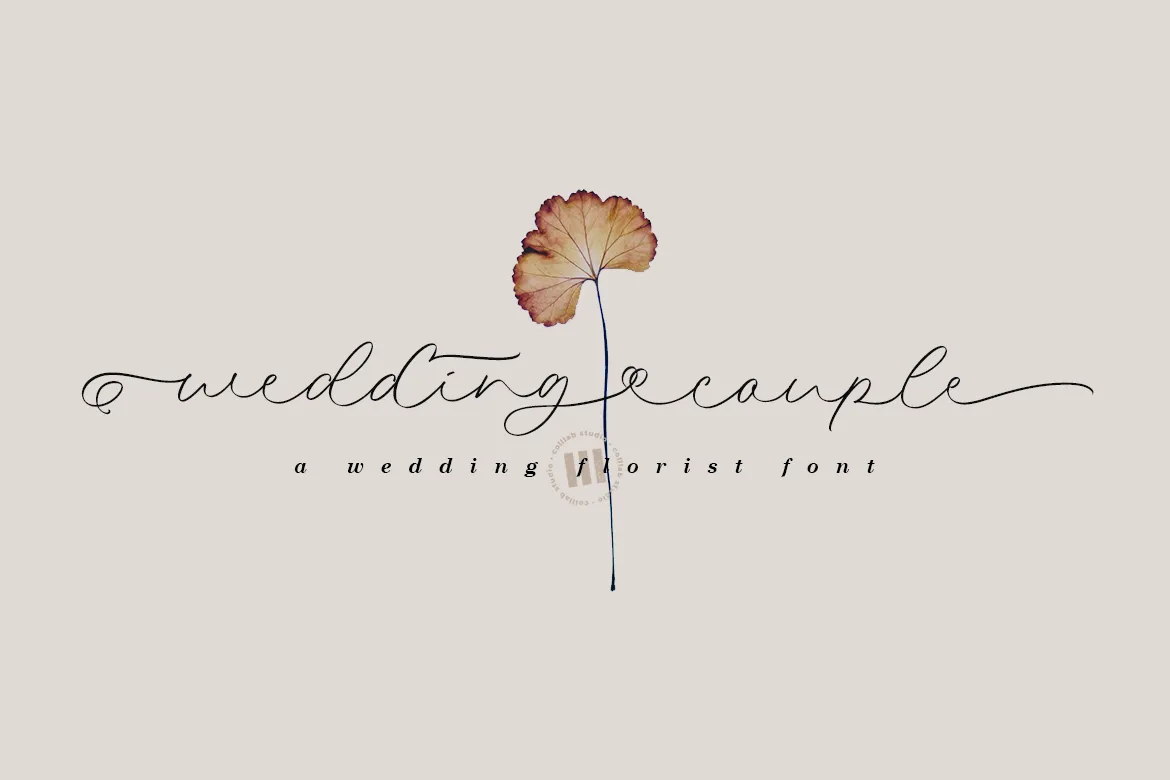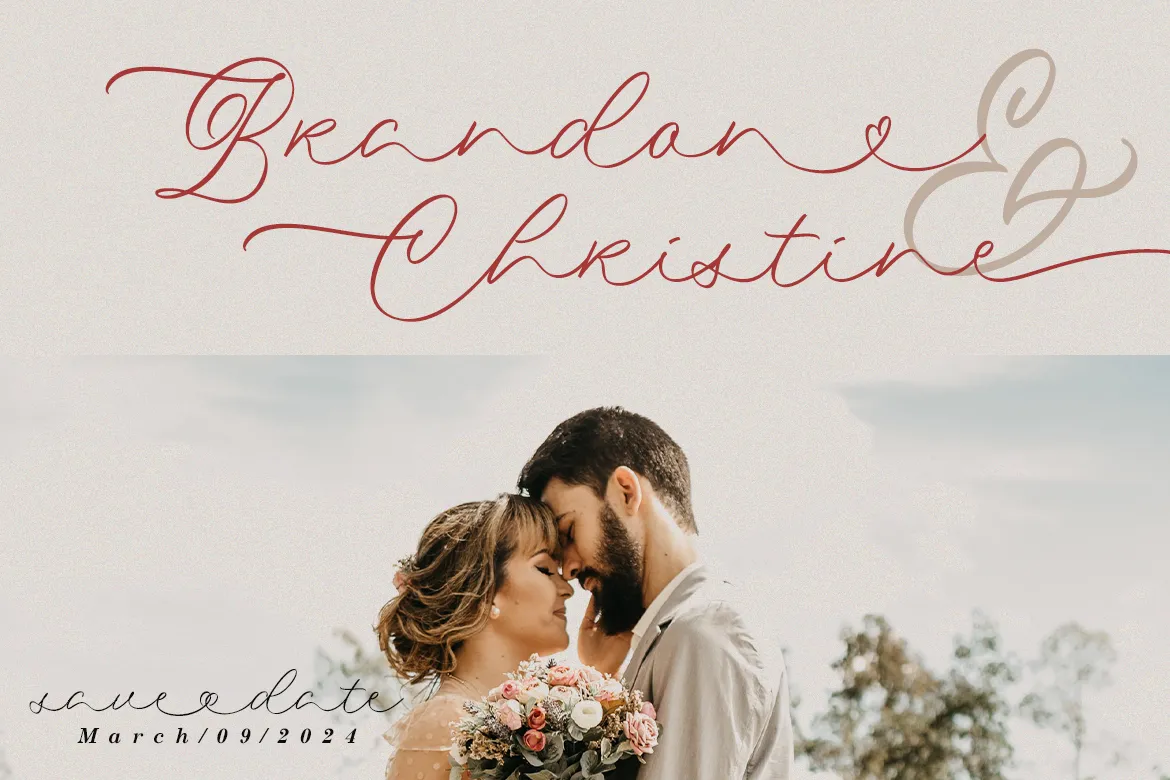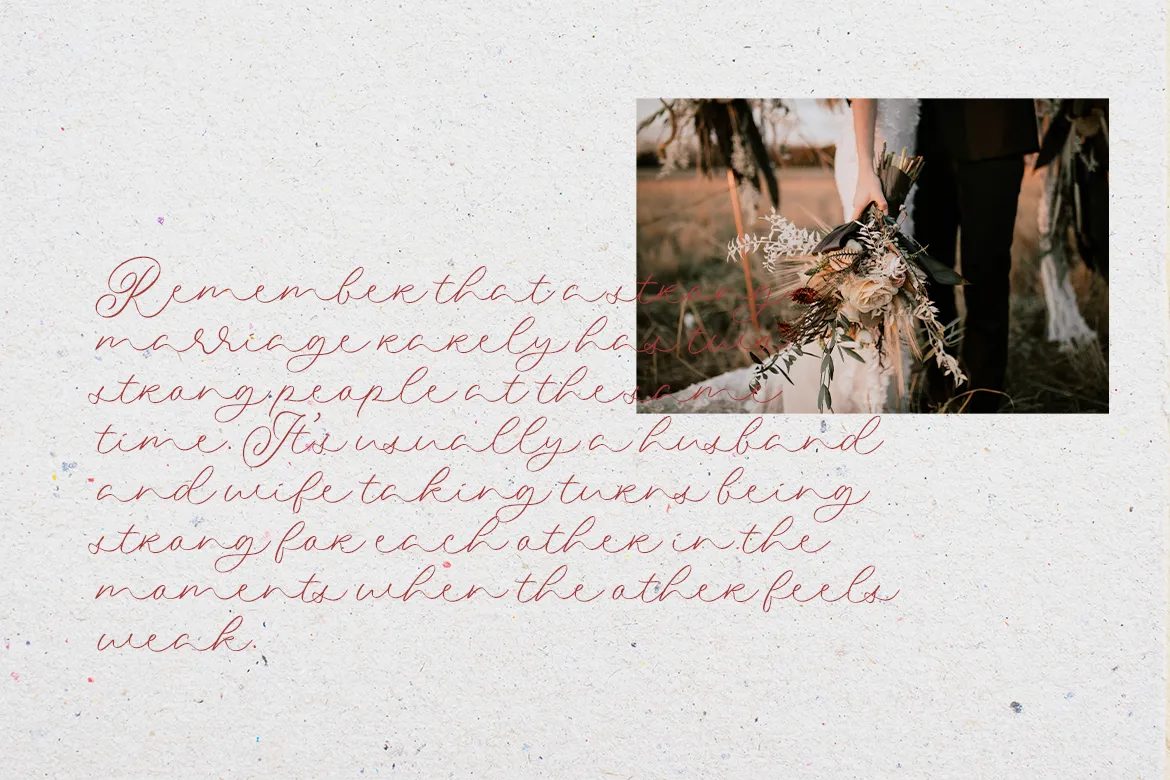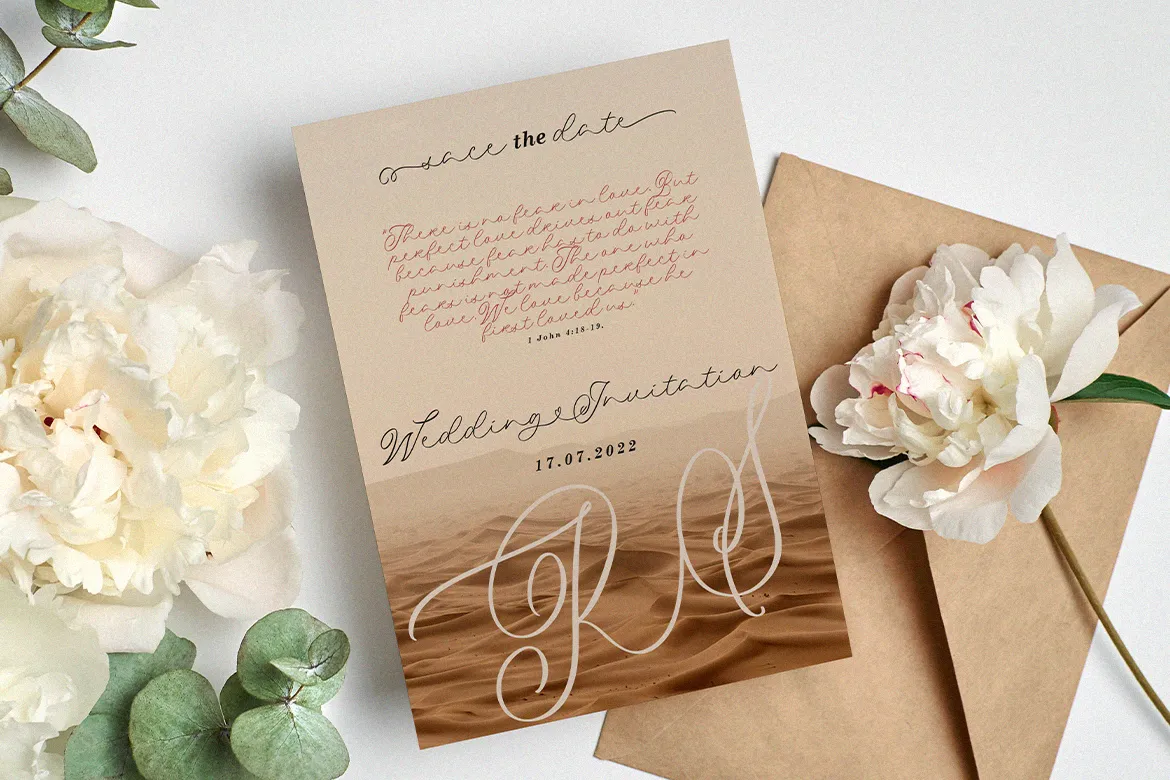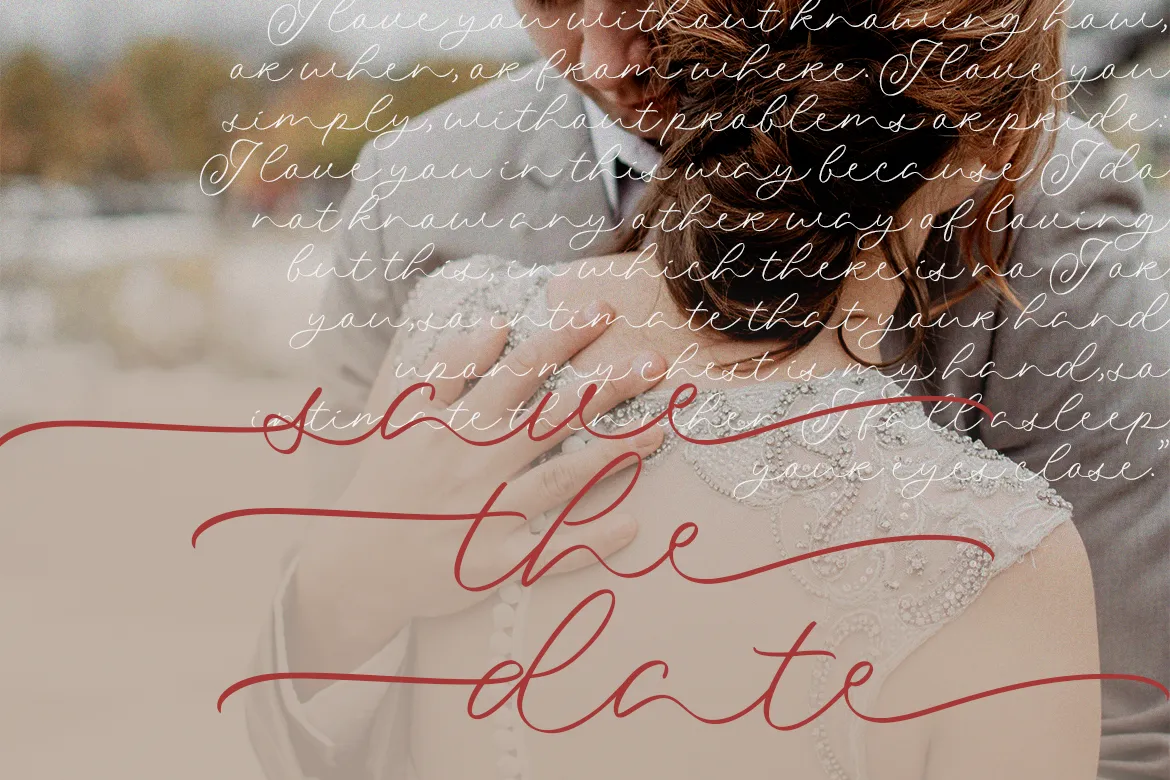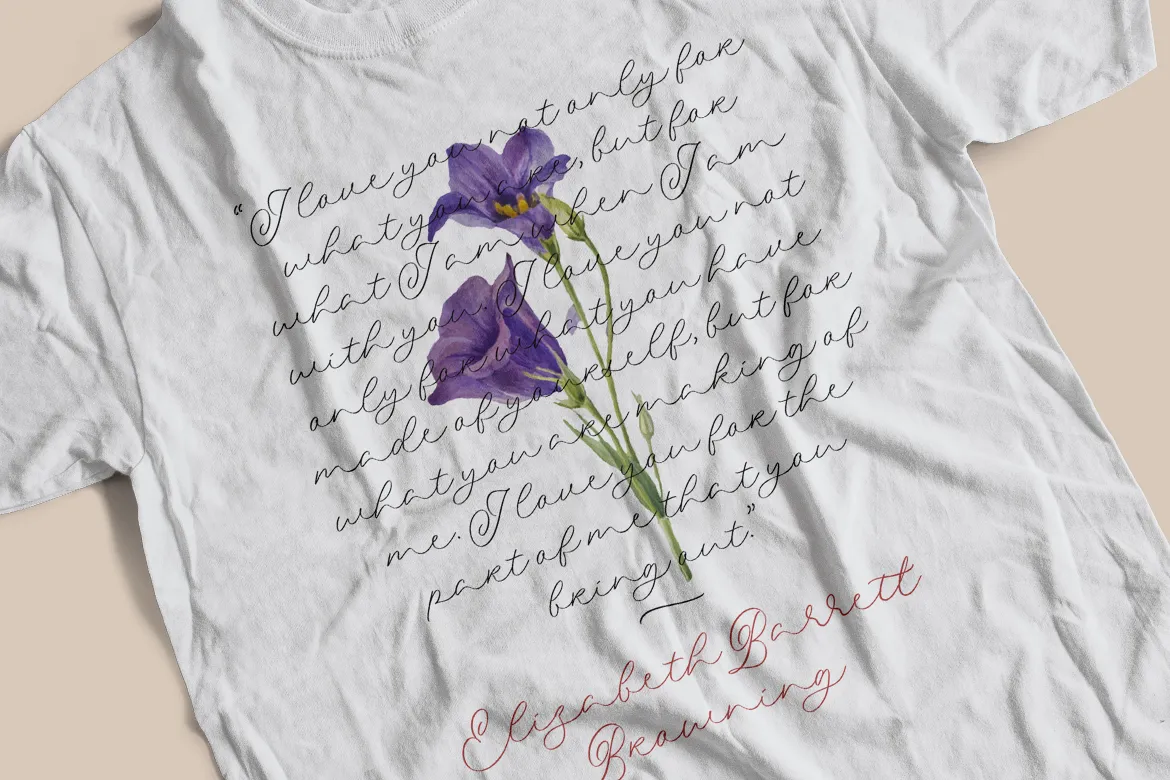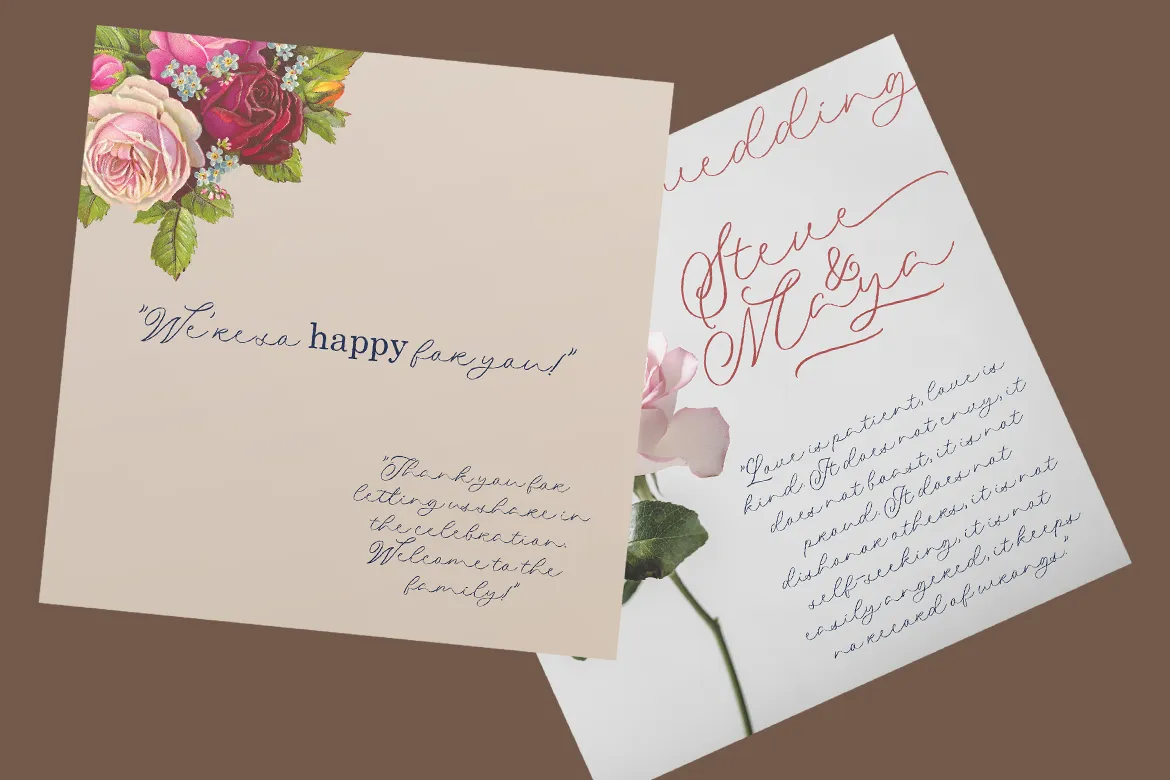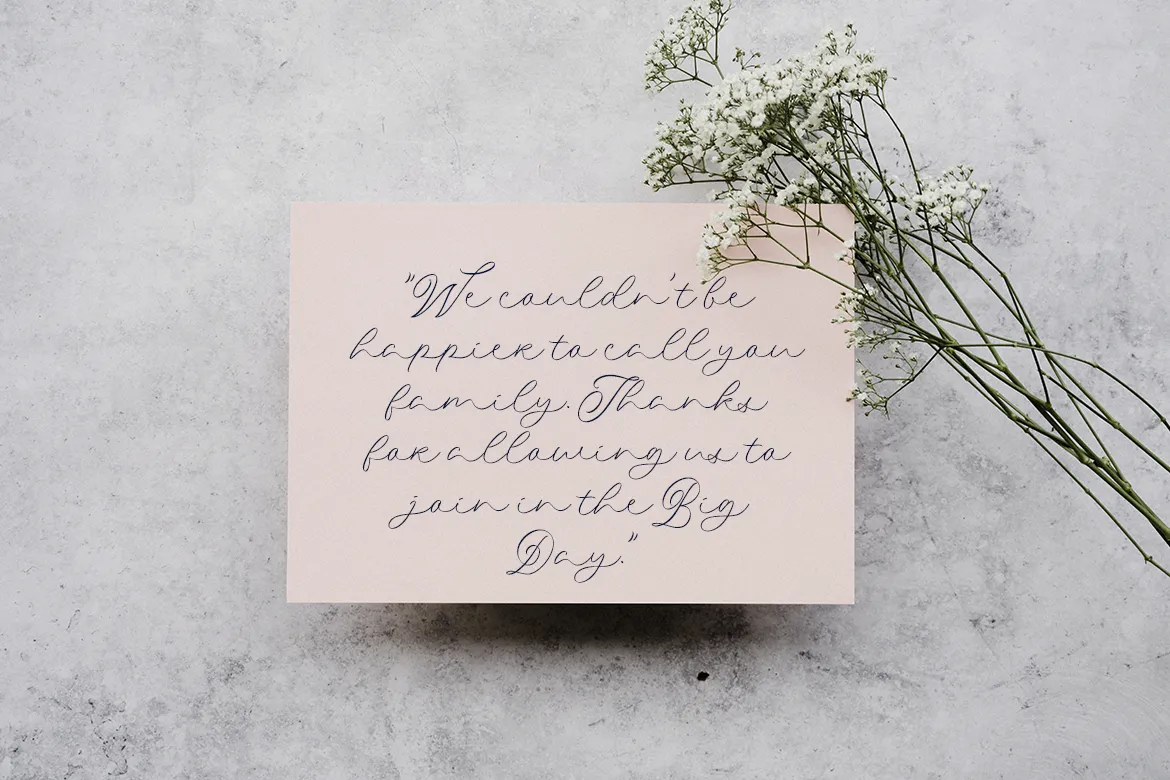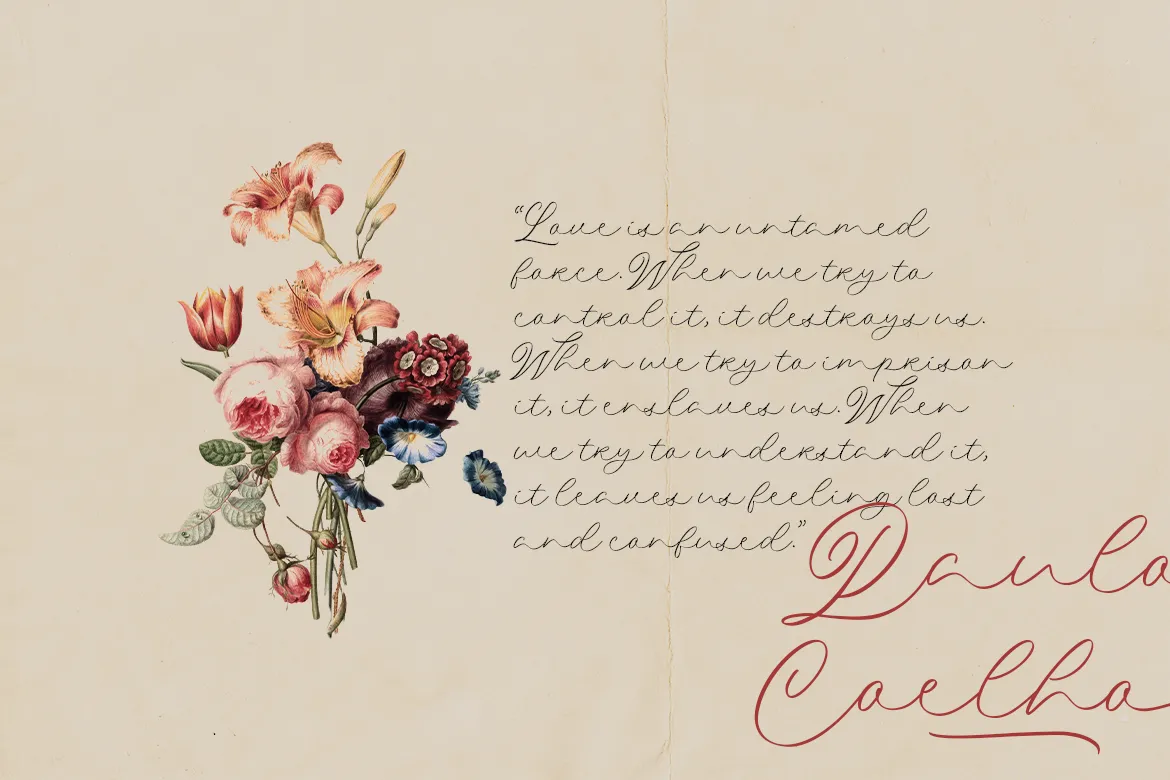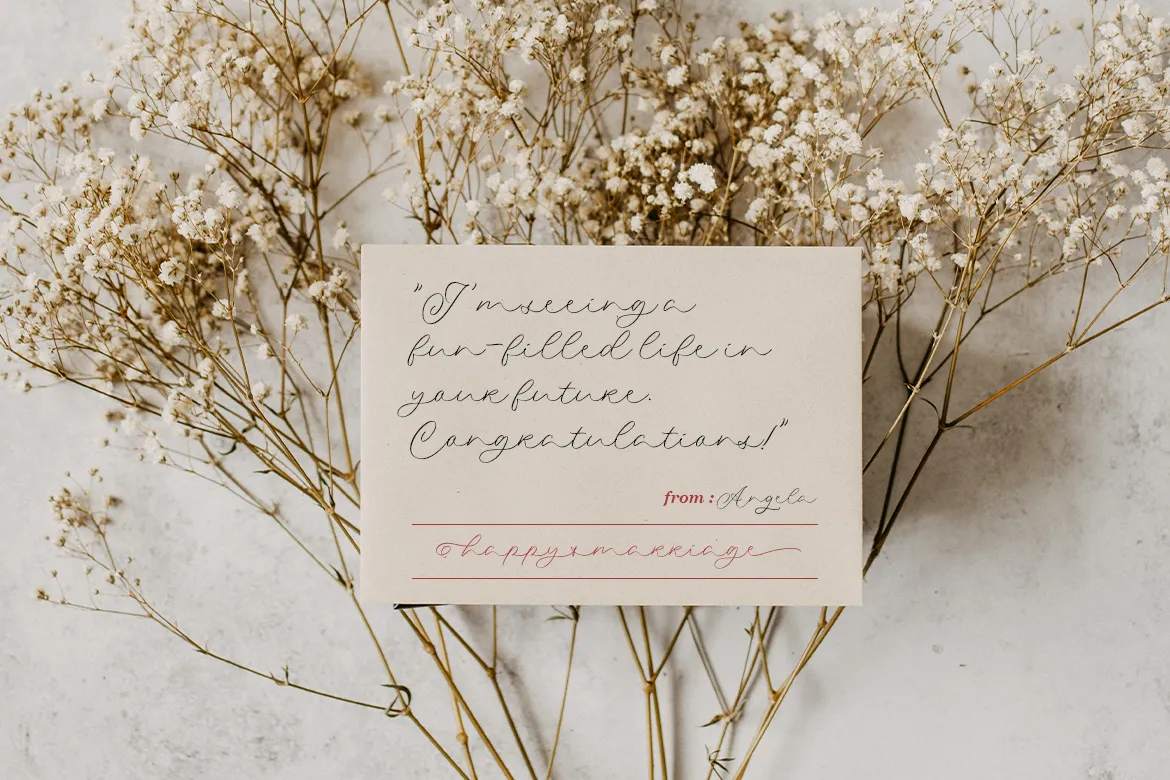
The timeless charm of calligraphy comes alive in Wedding Couple, a script font designed to bring grace and romance to any project. Its flowing letterforms, shaped with generous counters and elegant accents, create a natural rhythm that feels both organic and refined.
With its balance of readability and sophistication, Wedding Couple is an ideal choice for branding, fashion labels, and creative work that calls for elegance with a modern edge.